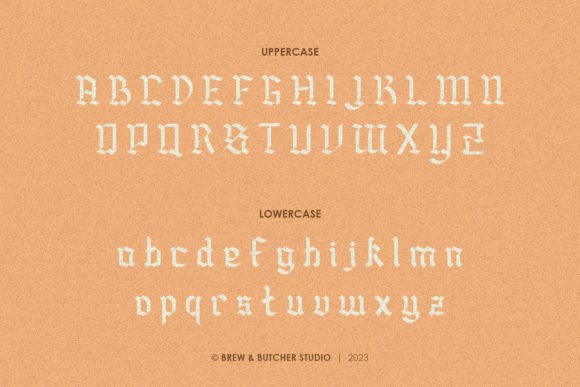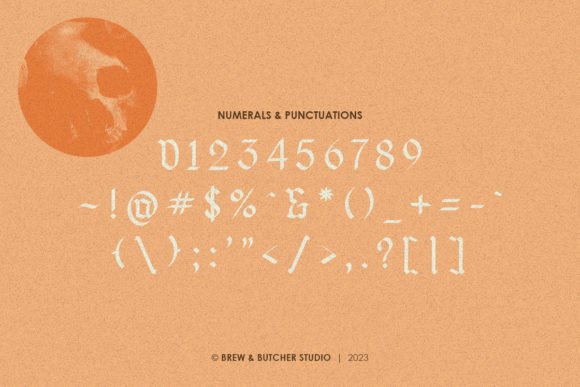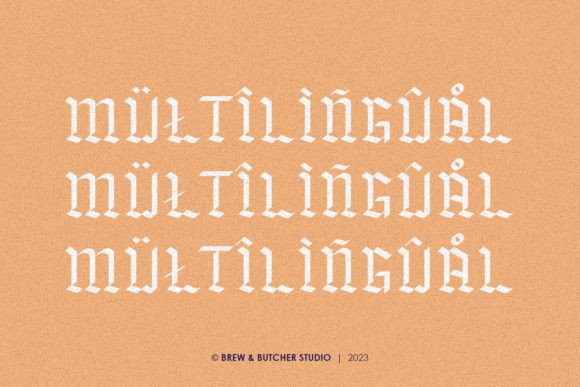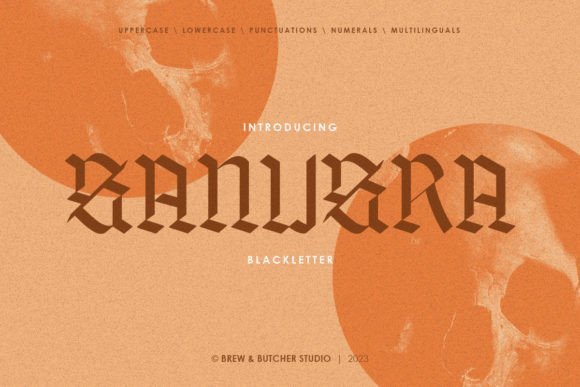
Introduction to Sanusra Font
Sanusra is an artistic blackletter calligraphy style.
This font seems to have a slightly darker feel, but still has lighthearted characteristics when applied with a cheerful and fun designs Use it for headers or headlines, posters, flyers, banners, landingpages, portfolios, album covers and more.
Key Features of Sanusra Font